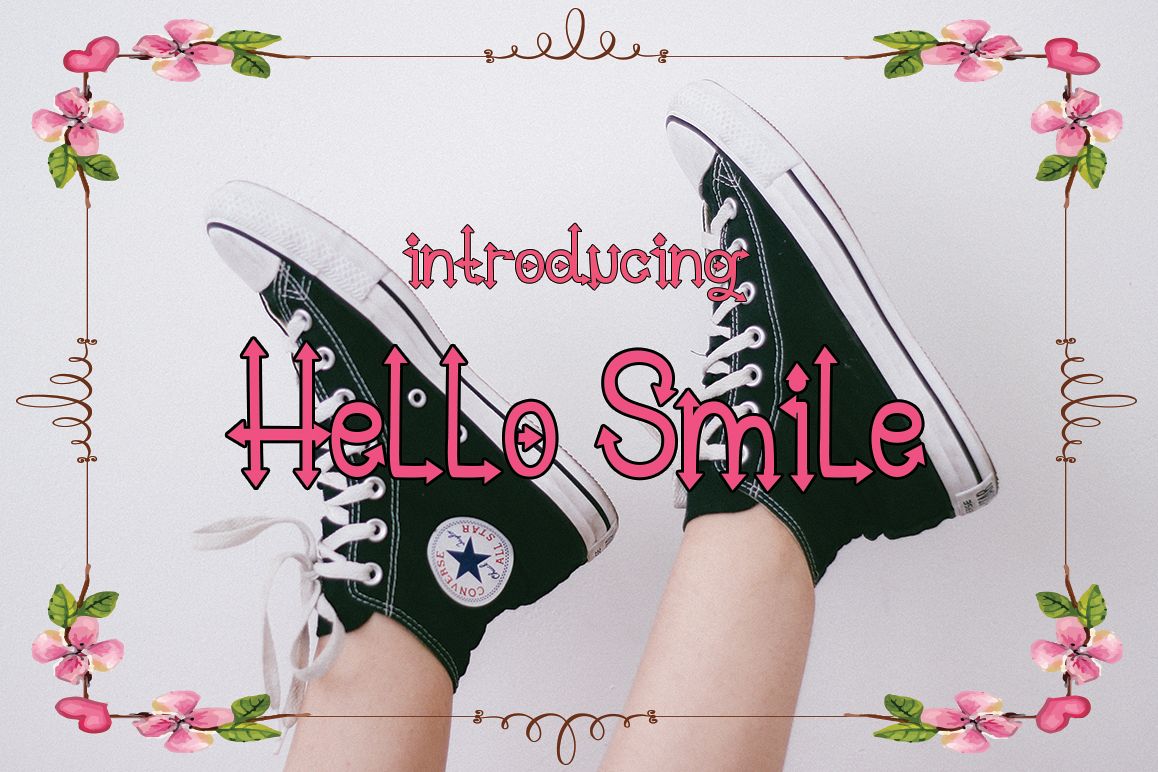
Hello Smile
Present: Hello Smile
This font is designed with handwriting, and has a unique, very natural shape and many language styles that support the language. Languages ​​Supported: Breton, Catalan, Czech, Danish, Estonian, French, German, Hungarian, Icelandic, Italian, Romanian, Scottish Gaelic, Slovak, Latvian, Lithuanian, Norwegian, English, Finnish, Polish, Portuguese, Slovenian, Spanish, Turkish , Welsh. Basically, all European languages ​​are based on the Latin alphabet.
And more interestingly, this font has two models.